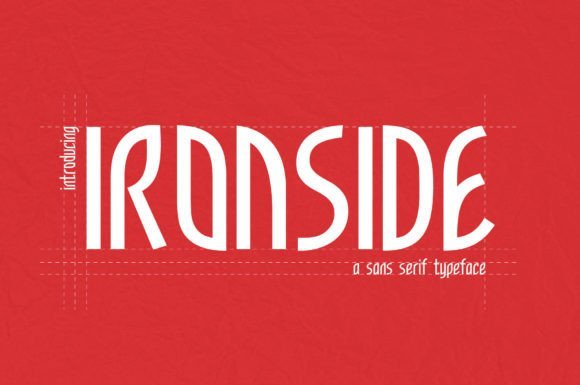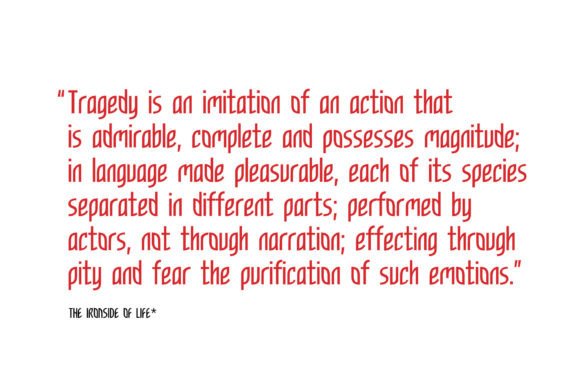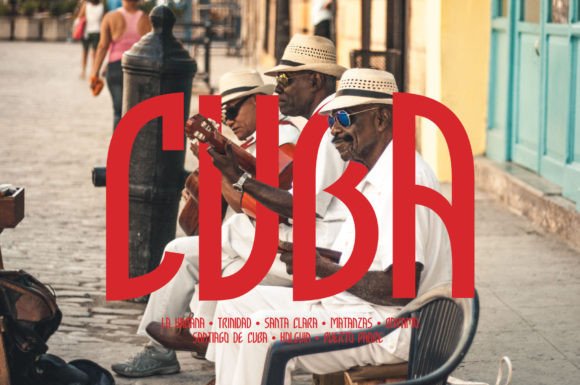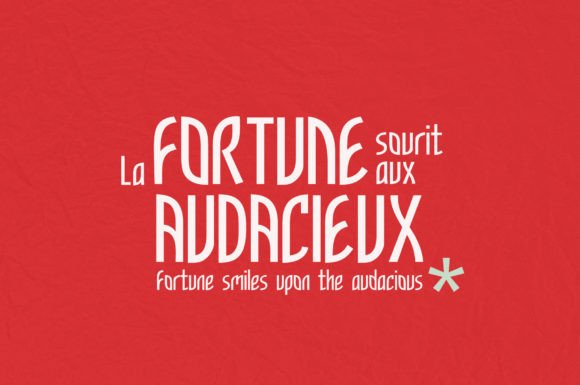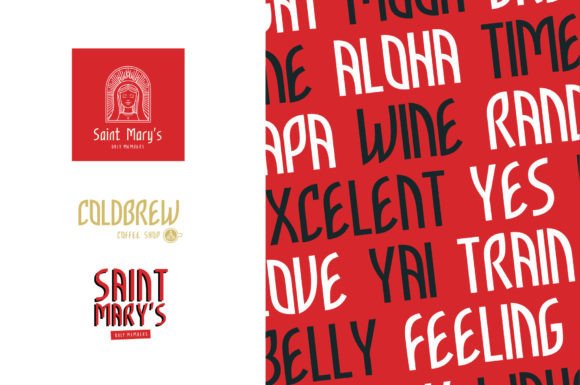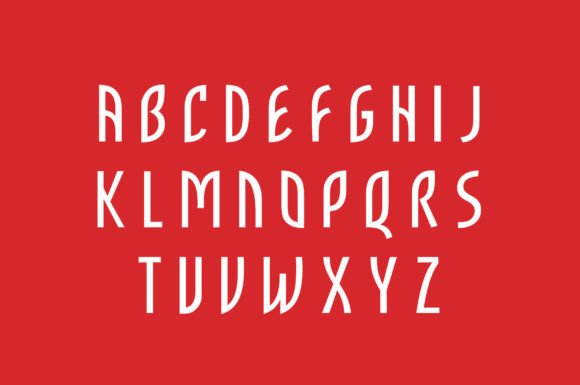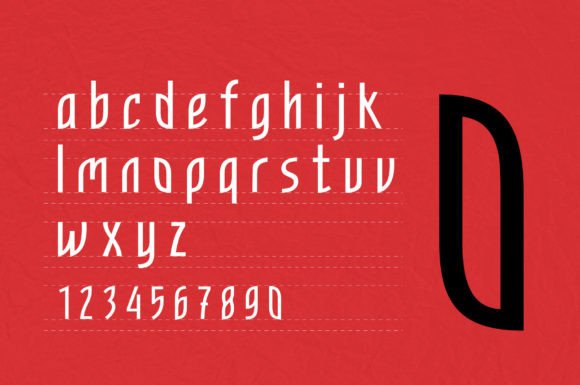
The Birth of a Timeless Font: Unveiling the Ironside Font
As a designer, you’ve probably found yourself pouring over old photographs of vintage signs and classic lettering, searching for inspiration to bring your next project to life. Maybe it was a faded diner sign from the 1950s or a vintage movie poster that caught your eye. Whatever it was, you couldn’t help but feel a sense of nostalgia and awe at the beauty of classic typography.
Enter the Ironside Font, a stunning blend of art deco and vintage typography that captures the essence of a bygone era. Born from the same influences that inspired those vintage signs and classic lettering, Ironside Font is more than just a font – it’s a way to connect with the past while still feeling fresh and modern.
As a valuable tool for designers, the Ironside Font offers unparalleled flexibility and style, making it perfect for branding, signage, posters, and more. Whether you’re working on a high-profile advertising campaign or a personal project, this beautiful and legible font is sure to elevate your design to the next level.
Ironside Font Key Features
- Size: The font family includes multiple weights and styles, ranging from Light to Black, with each weight available in Regular, Italic, Bold, and Bold Italic.
- Unique Characteristics: The font features a distinctive, modern sans-serif design with clean lines, geometric shapes, and a strong x-height, making it highly legible and versatile.
- Language Support: Ironside Font includes support for a wide range of languages, including Latin, Cyrillic, Greek, and many others, making it suitable for global applications.
- Kerning and Ligatures: The font includes advanced kerning and ligature tables, ensuring smooth and even spacing between characters, even in complex text settings.
Review: Ironside Font
Overall, I think the Ironside Font has some great qualities that make it suitable for certain projects, but it also has some limitations that might hold it back from being a top choice.
- The Ironside Font has a unique and bold aesthetic that’s perfect for adding some personality to headings and titles.
- The font is available in a wide range of languages, making it a great choice for global projects.
- The Ironside Font can be a bit difficult to read at smaller font sizes, which might make it less suitable for body text or paragraphs.
- The font’s bold aesthetic can sometimes come across as overbearing or aggressive, which might not be suitable for all projects.
Overall, I think the Ironside Font is a great choice for projects that require a bold and eye-catching font, but it might not be the best fit for more subtle or complex designs.
Ironside Font is particularly well-suited for creating bold, eye-catching headlines.
Ironside Font is great for creating custom typography in your designs.
Ironside Font is perfect for creating professional-looking presentations and documents.
Ironside Font is commonly used for:
- Creating bold, eye-catching headlines.
- Designing custom typography for branding and marketing materials.
- Adding a touch of sophistication to presentations and documents.
Alternatives to Ironside Font
1. Open Sans Font
Open Sans is a modern sans-serif font that works well for both body text and headings. It’s highly legible and comes in a wide range of weights and styles. Use it for clean and minimalistic designs.
Comparison to Ironside Font: Open Sans is more modern and clean, while Ironside Font has a more distressed and vintage feel. Open Sans is a good choice when you want a neutral and professional font.
2. Playfair Display Font
Playfair Display is an elegant and luxurious script font that’s perfect for headings and titles. It adds a touch of sophistication and glamour to any design. Use it for high-end and premium designs.